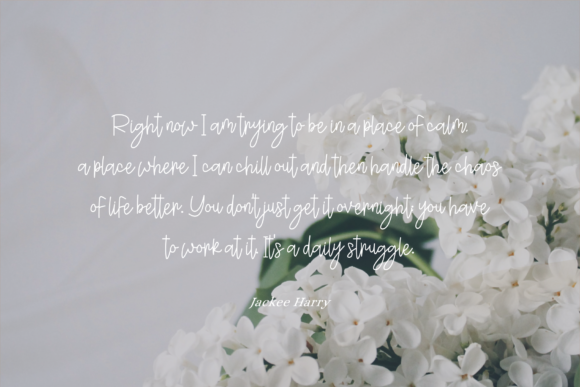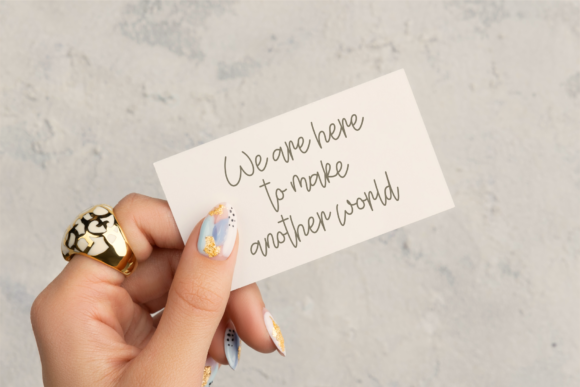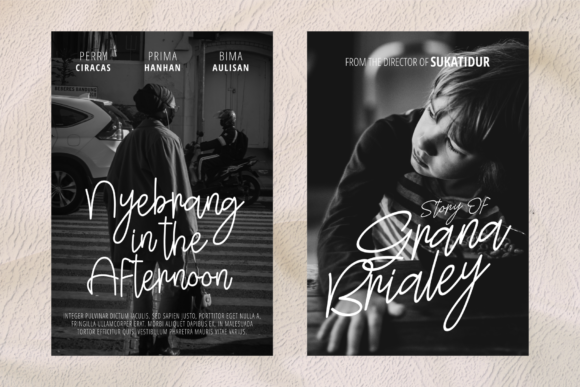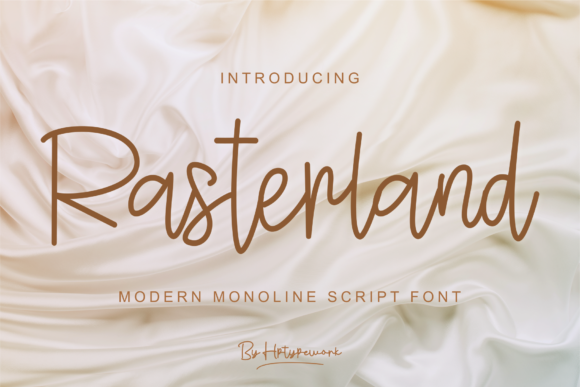
Introduction to Rasterland Font
Rasterland is modern and whimsical script font.
Incredibly versatile, this font fits a wide pool of designs, elevating them to the highest levels Add this font to your favorite creative ideas and notice how it makes them come alive.